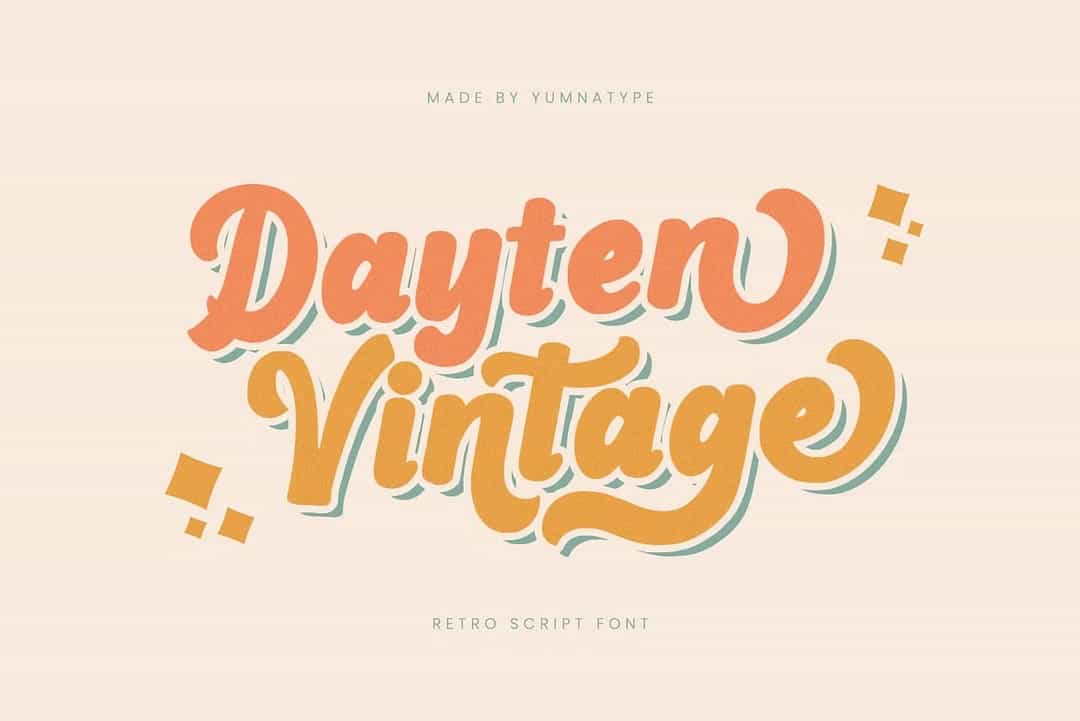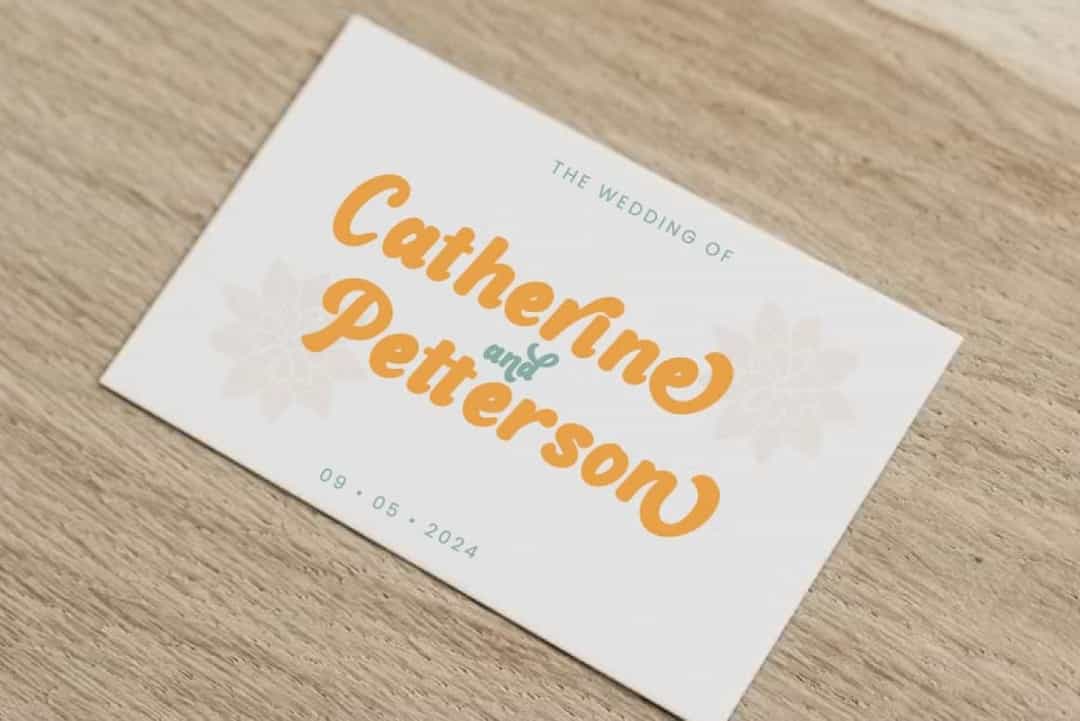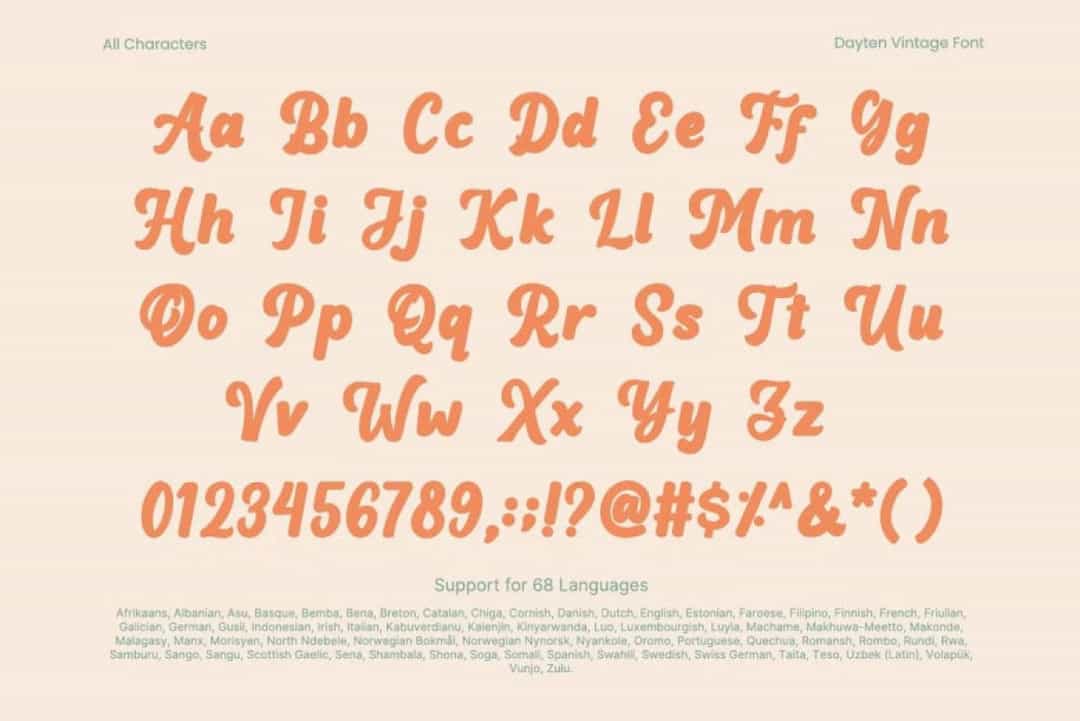
Dayten Vintage is an elegant script font designed to transport you back in time with its retro flair. Crafted with strong texturing and round shapes, Dayten Vintage exudes warmth and nostalgia. Dayten Vintage captures the spirit of retro typography through its heavy weight and round shapes, recalling old signs and advertisements from days gone by.